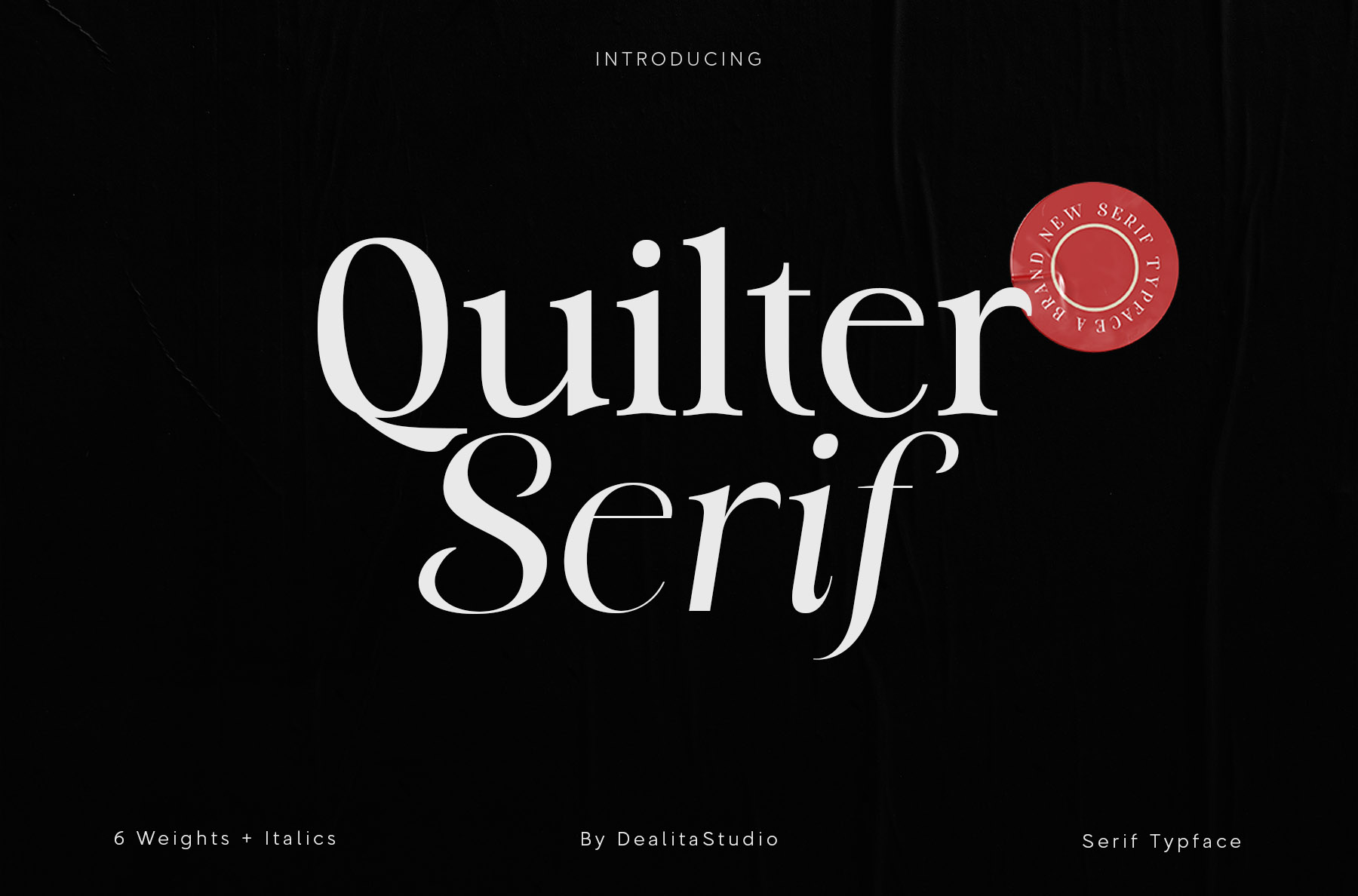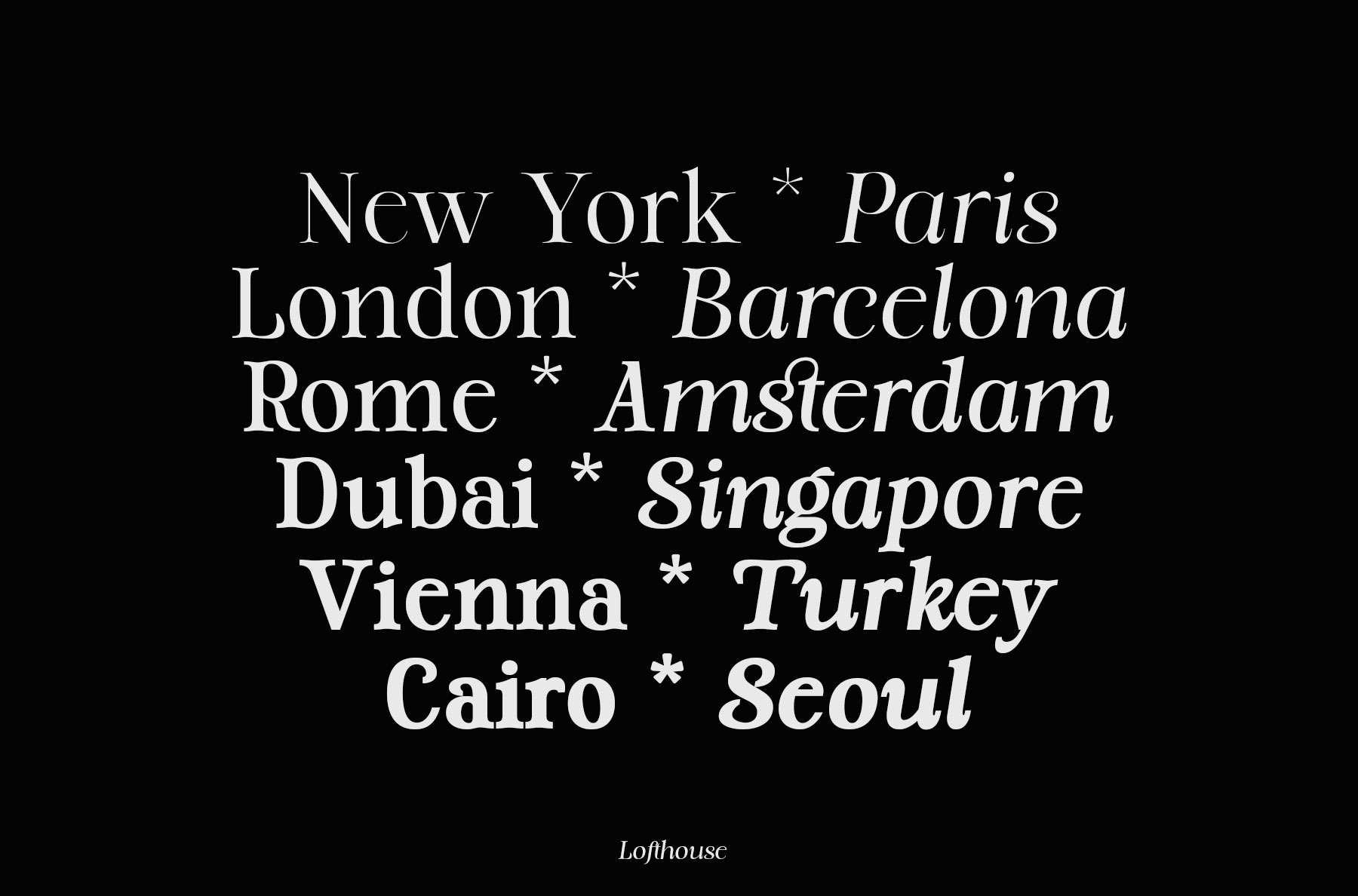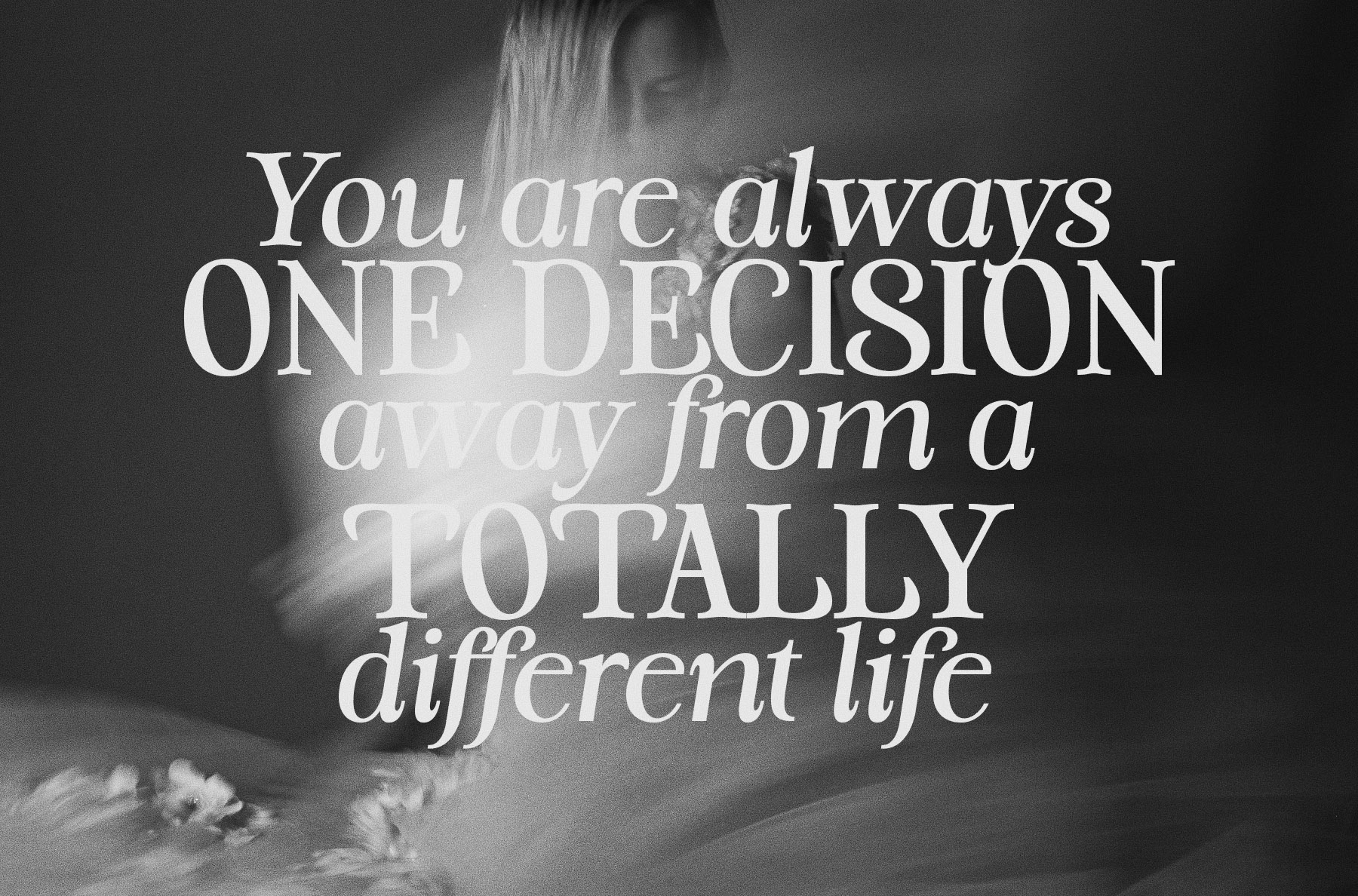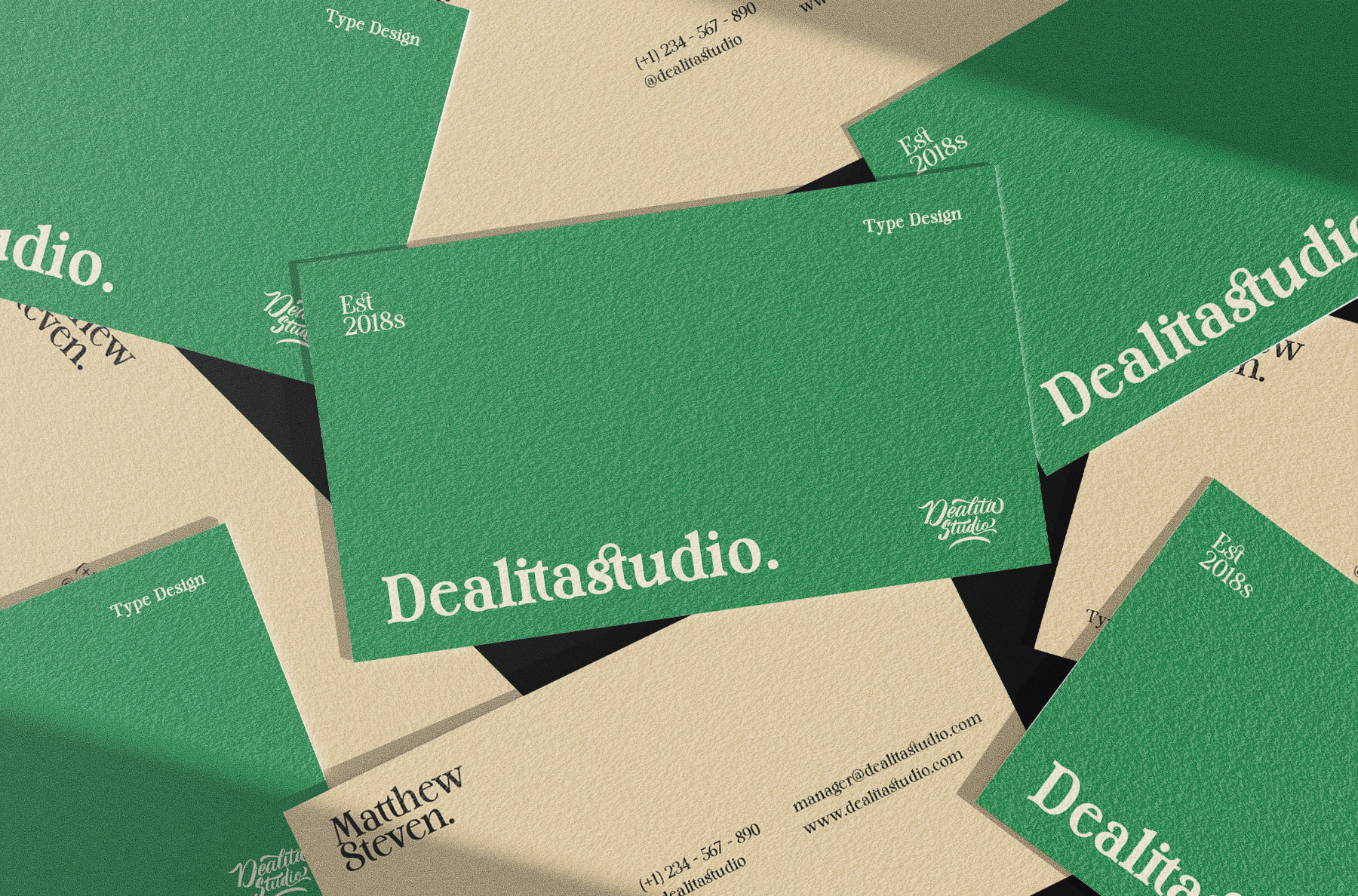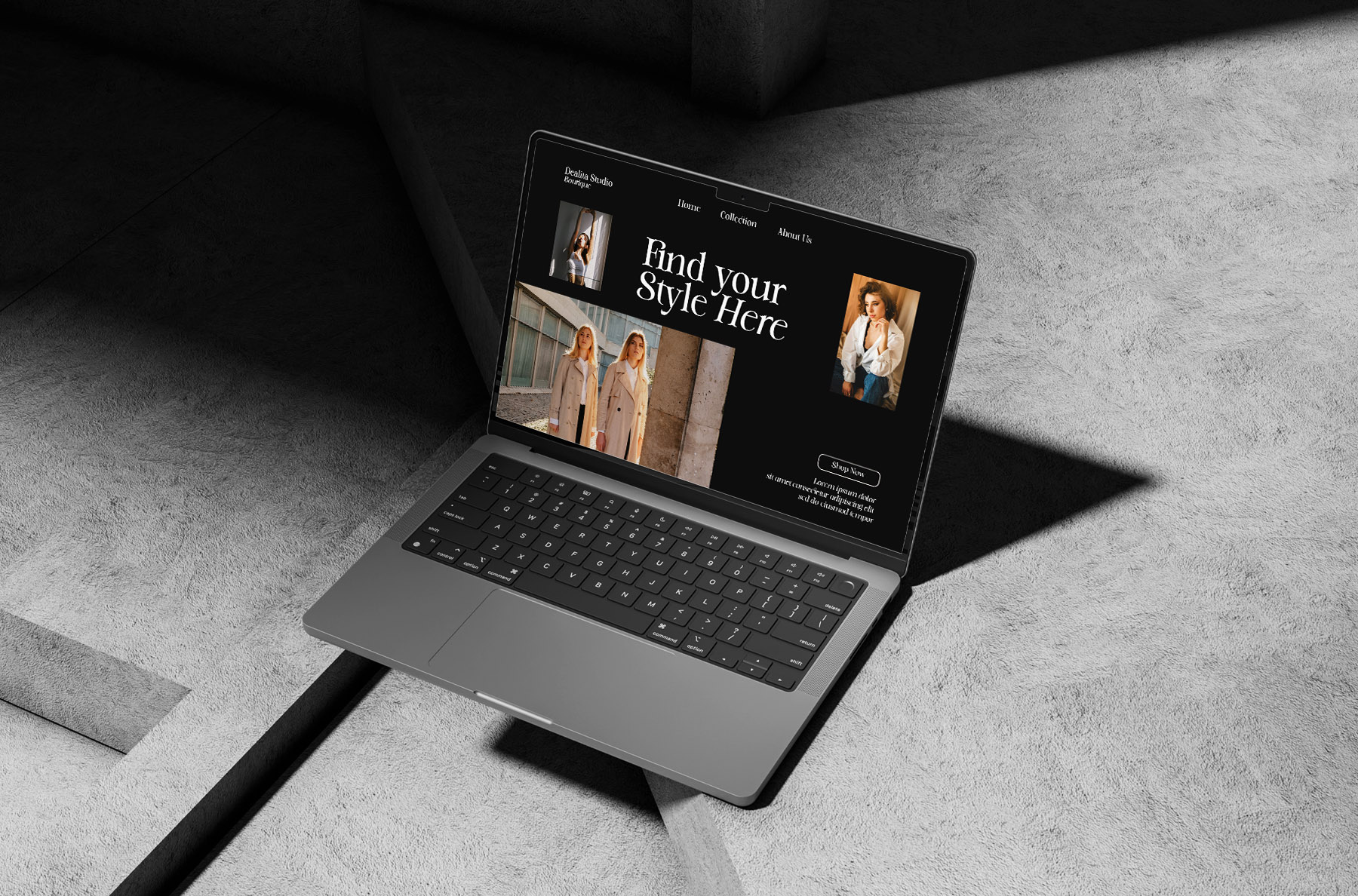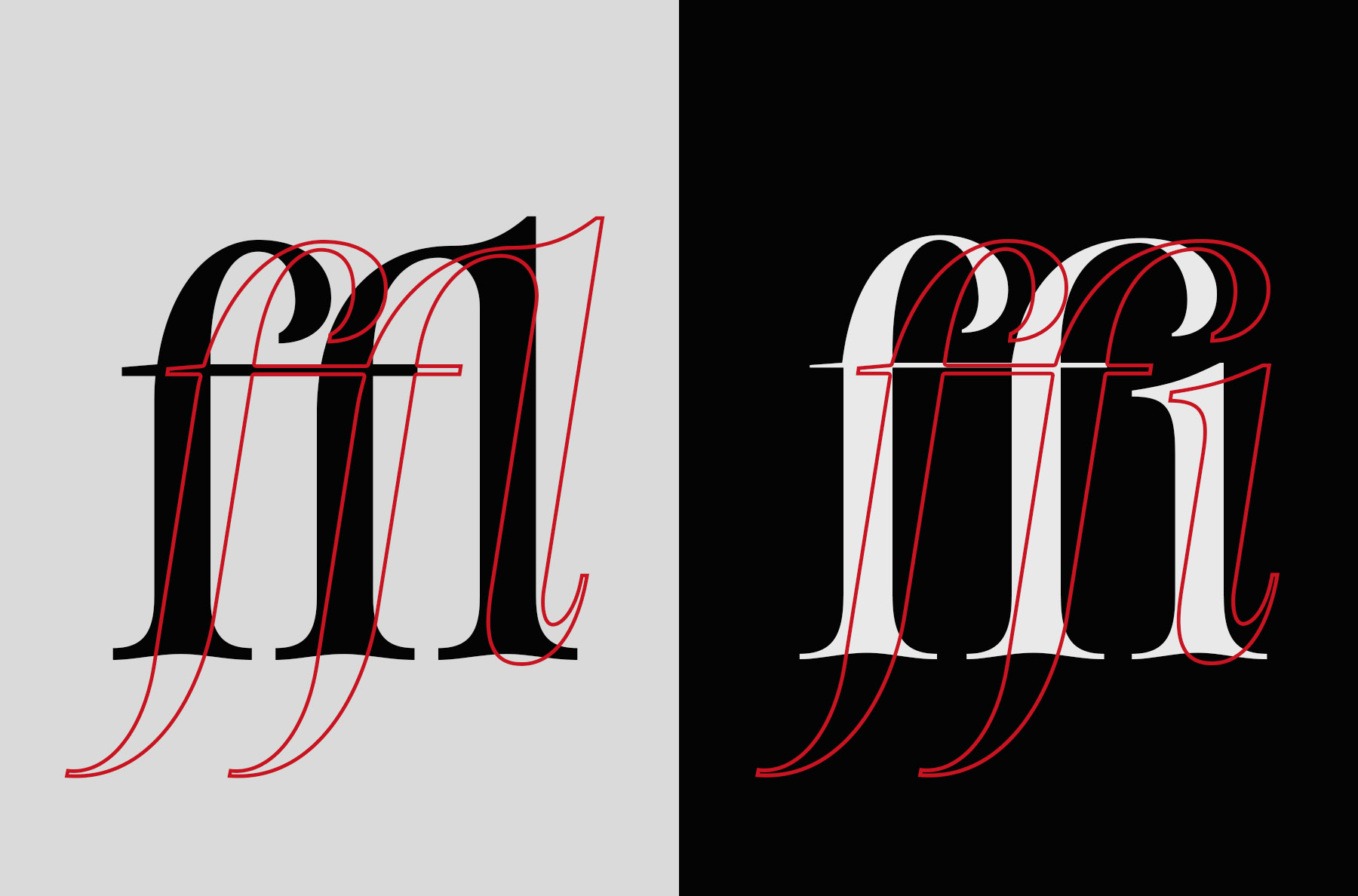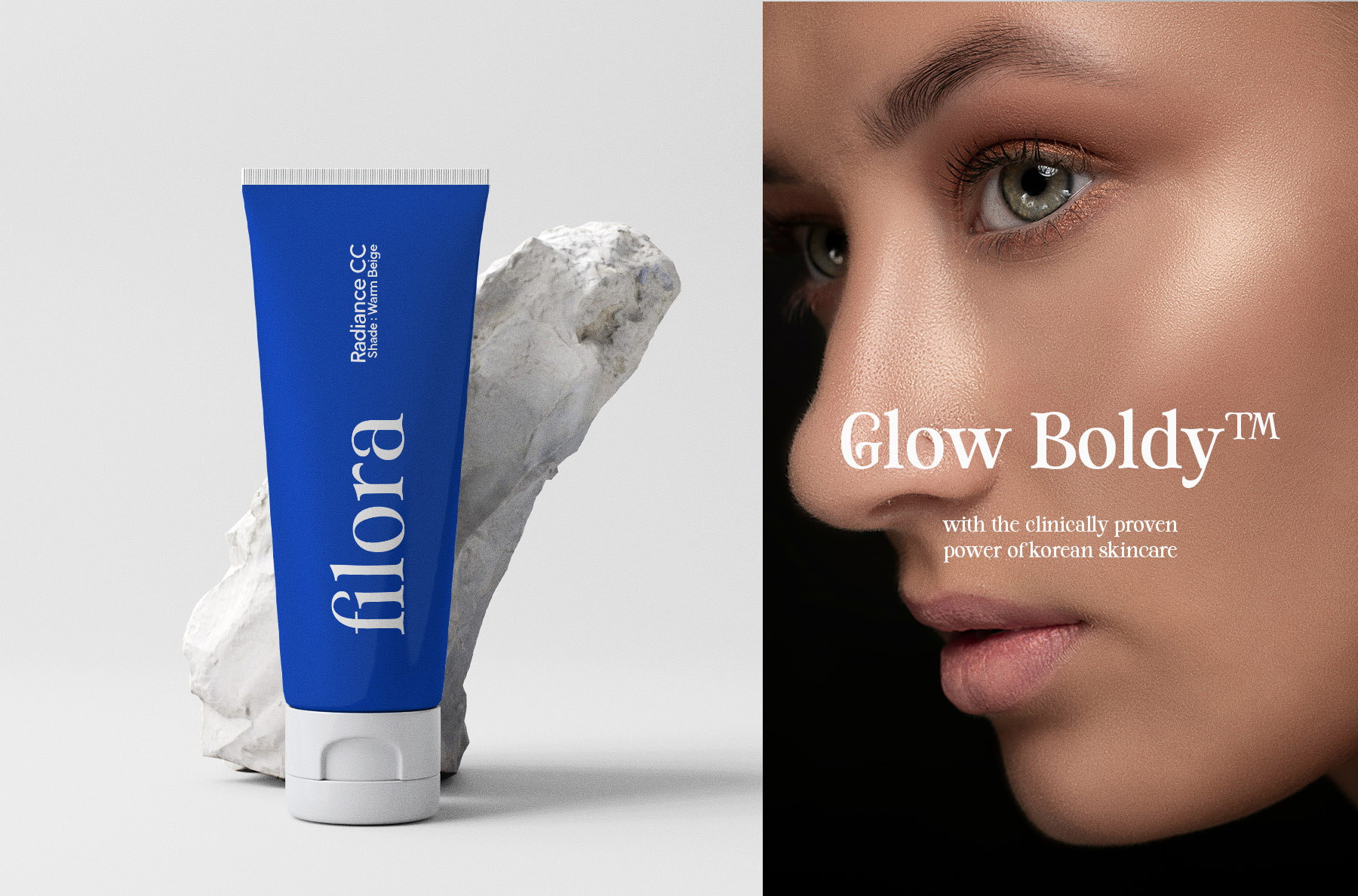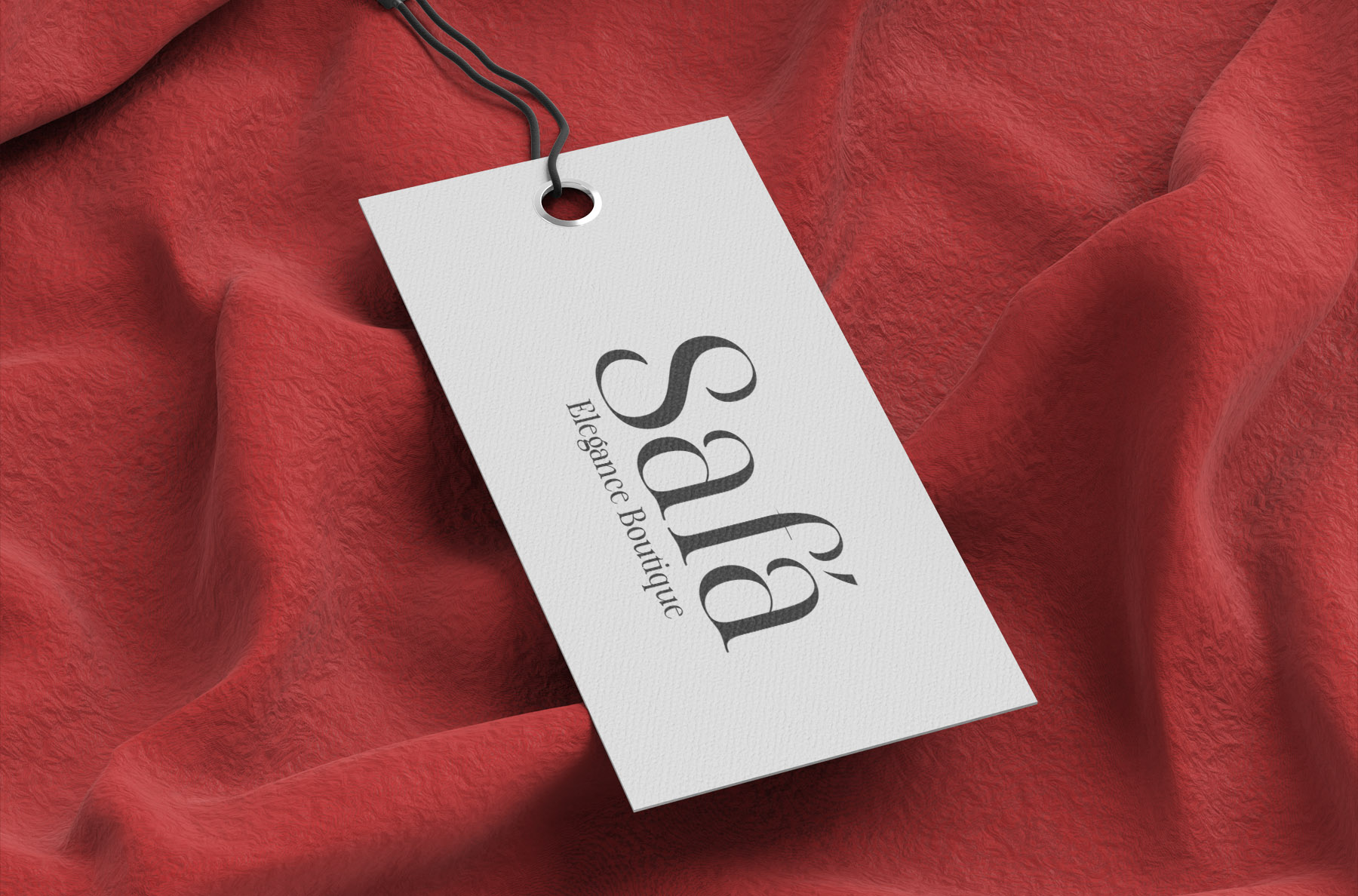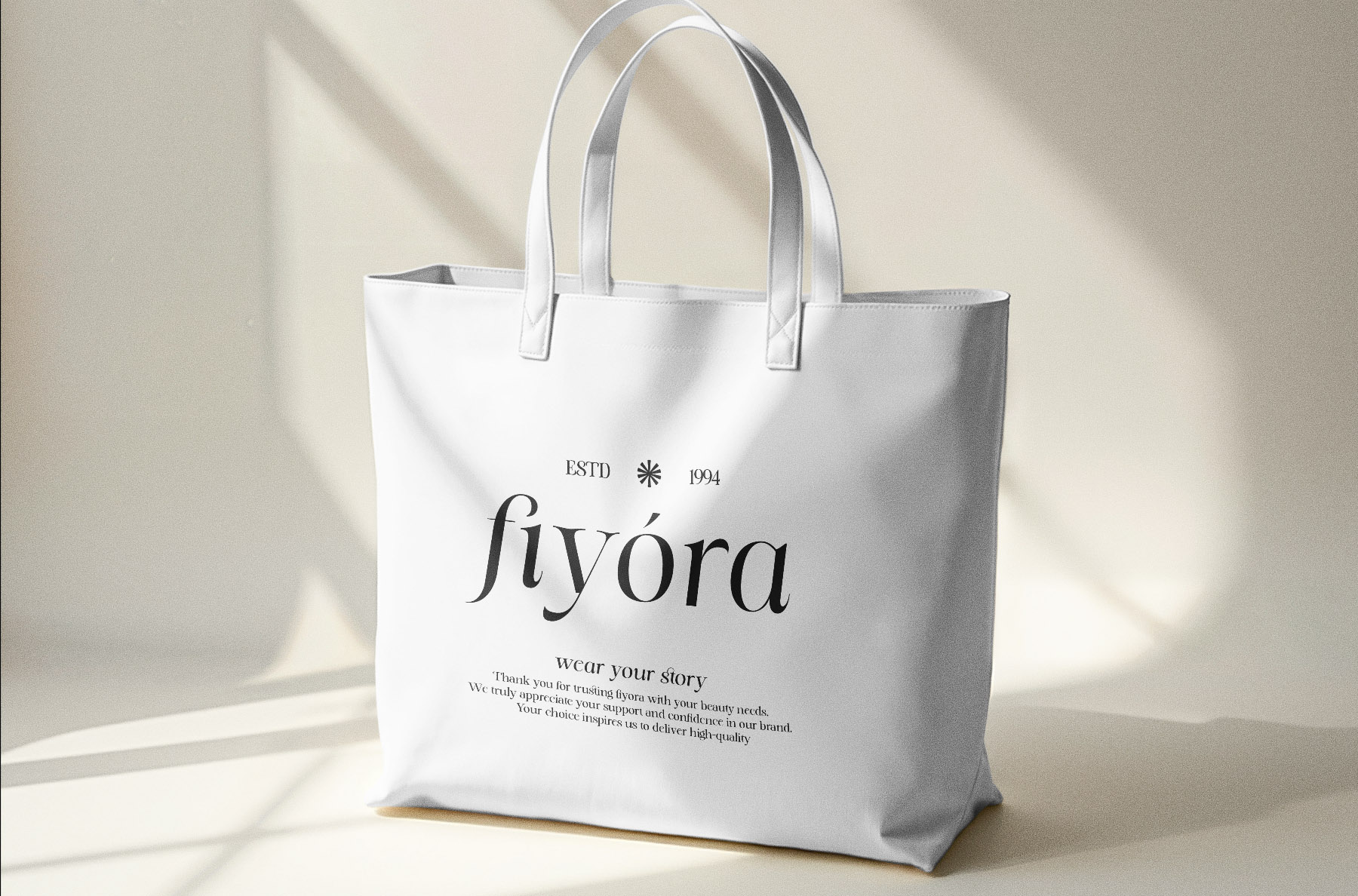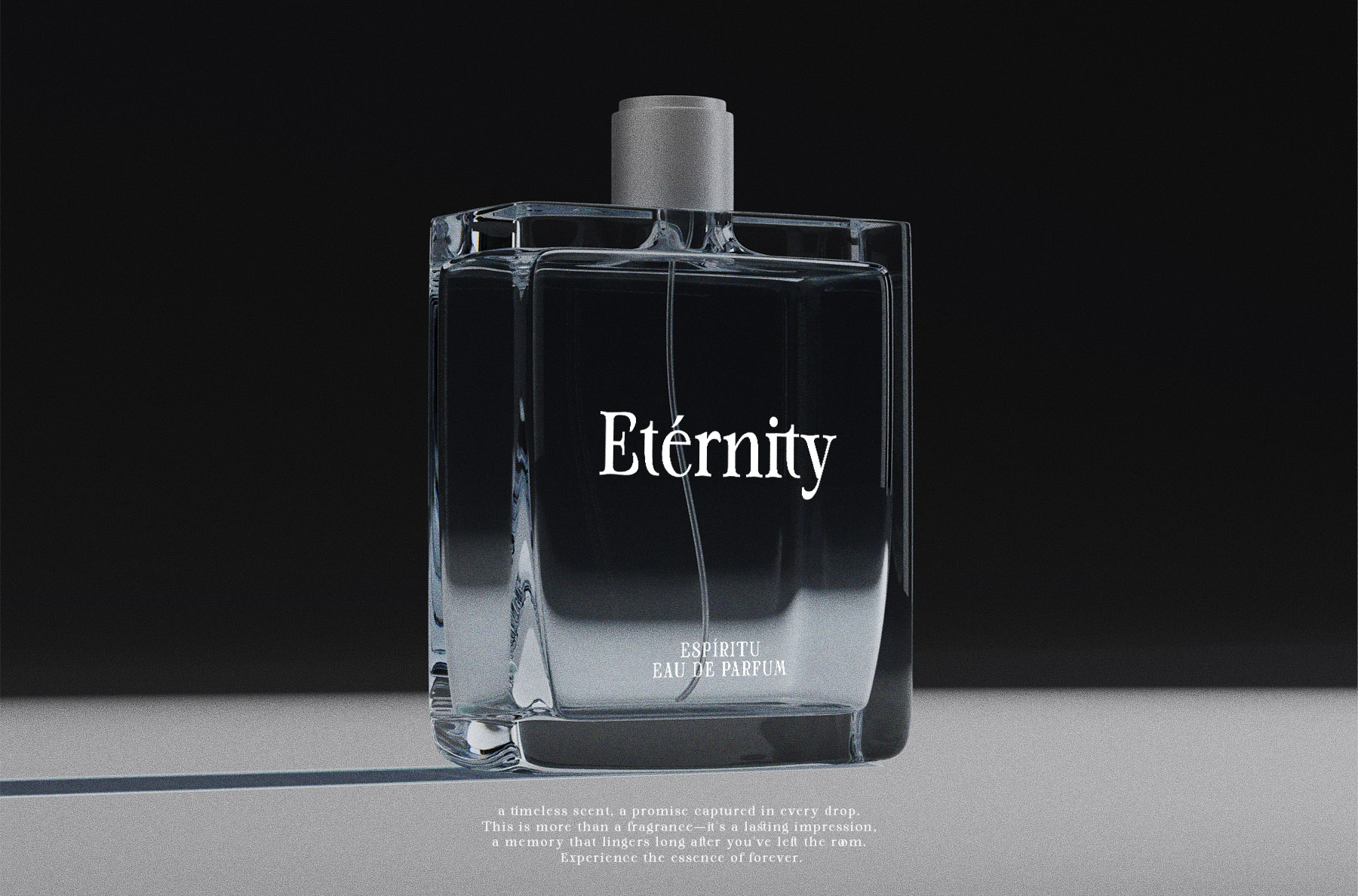
DS Quilter | Luxury Variable Serif for Packaging Brands
Description
DS Quilter is a luxury variable serif font that seamlessly blends minimalist elegance with modern aesthetics. Featuring a massive weight range from Light to ExtraBold, DS Quilter offers unmatched versatility for designers who demand absolute refinement and typographic scale in their projects.
Perfectly crafted for high-end physical branding, DS Quilter excels in applications where sophistication meets visual impact. Its balanced contrast makes it the ultimate choice for perfume logos, high-fashion brands, skincare packaging, and premium editorial design.
Ideal Applications
- High-end perfume logos and luxury fragrance branding
- Premium skincare packaging and cosmetic labels
- Fashion brand identities and premium lookbooks
- Sophisticated editorial design and magazine layouts
Technical Specifications & Flexibility
- Variable Font Technology: Smooth weight transitions from Light to ExtraBold for perfect scaling across any medium.
- Elegant Flow: 30 carefully curated ligatures for natural, high-end text connections.
- Global Utility: 256 glyphs with robust multilingual support for international luxury brands.